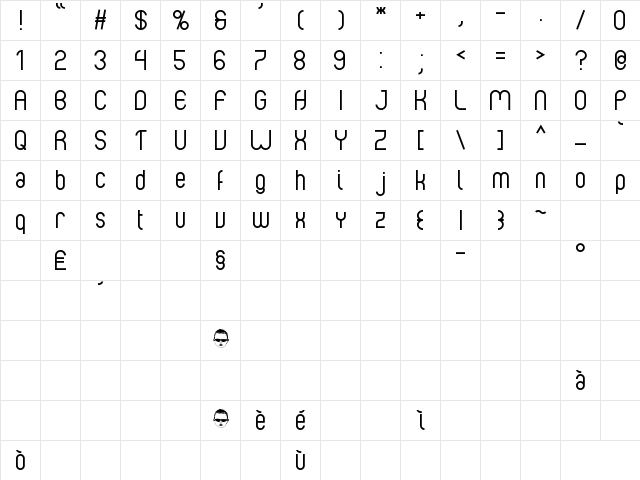
Albertino Regular
Design Context for Albertino Typeface
Albertino takes a measured approach to typography — its balanced proportions and neutral character make it a reliable workhorse for both digital and print work.